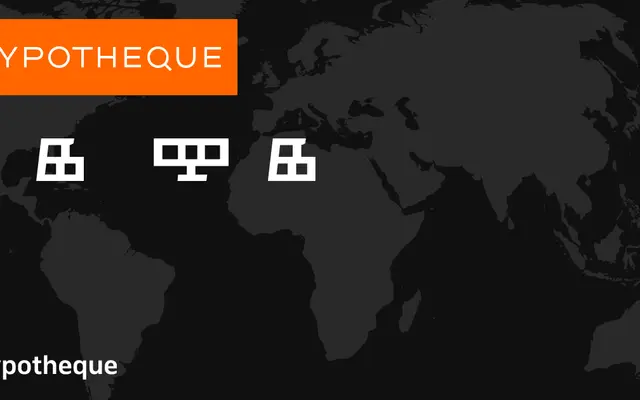
Identitet
A multi-script family from Typotheque covering Latin, Cyrillic and three distinct Glagolitic variants, rooted in South Slavic typographic and manuscript traditions.
Identitet brings together five subfamilies spanning contemporary Latin and Cyrillic alongside three Glagolitic cuts, including a historical 1483 variant and the rounded Glagoljica Obla. The breadth of script coverage is unusual even by Typotheque standards, and the inclusion of Glagolitic places this family in rare company for a commercially available typeface. Available in Regular and Medium, it is aimed at cultural, heritage and academic contexts where script fidelity and historical grounding matter.
The family spans Latin, Cyrillic and multiple Glagolitic scripts, suggesting a humanist serif rooted in South Slavic typographic heritage. The breadth of script coverage and named subfamilies point to a scholarly, historically grounded design.